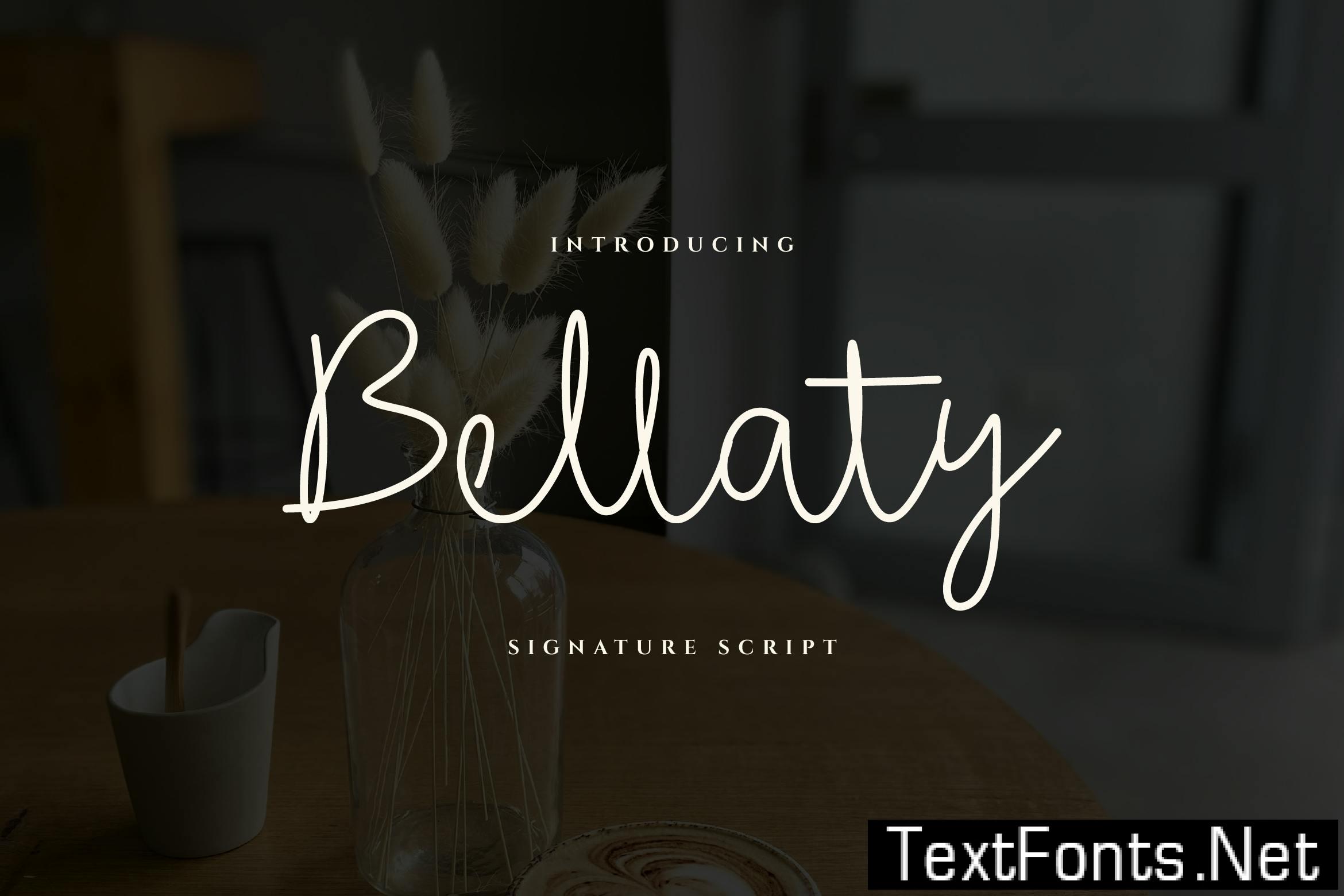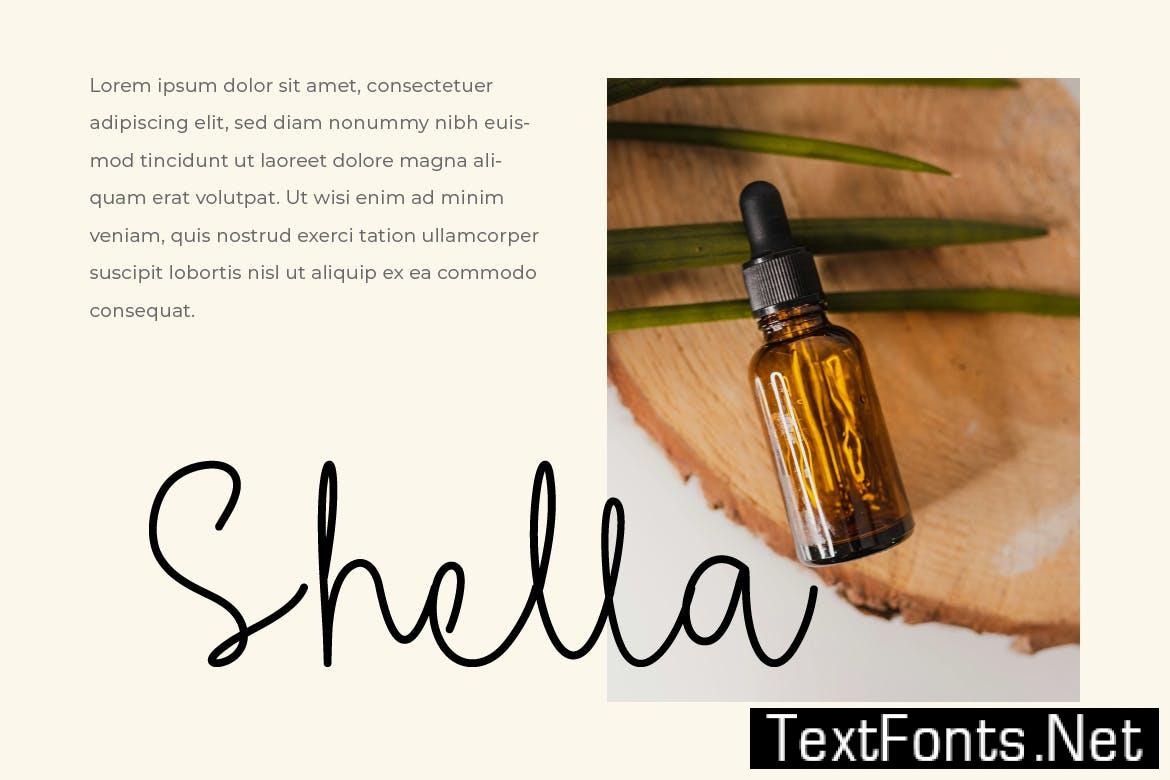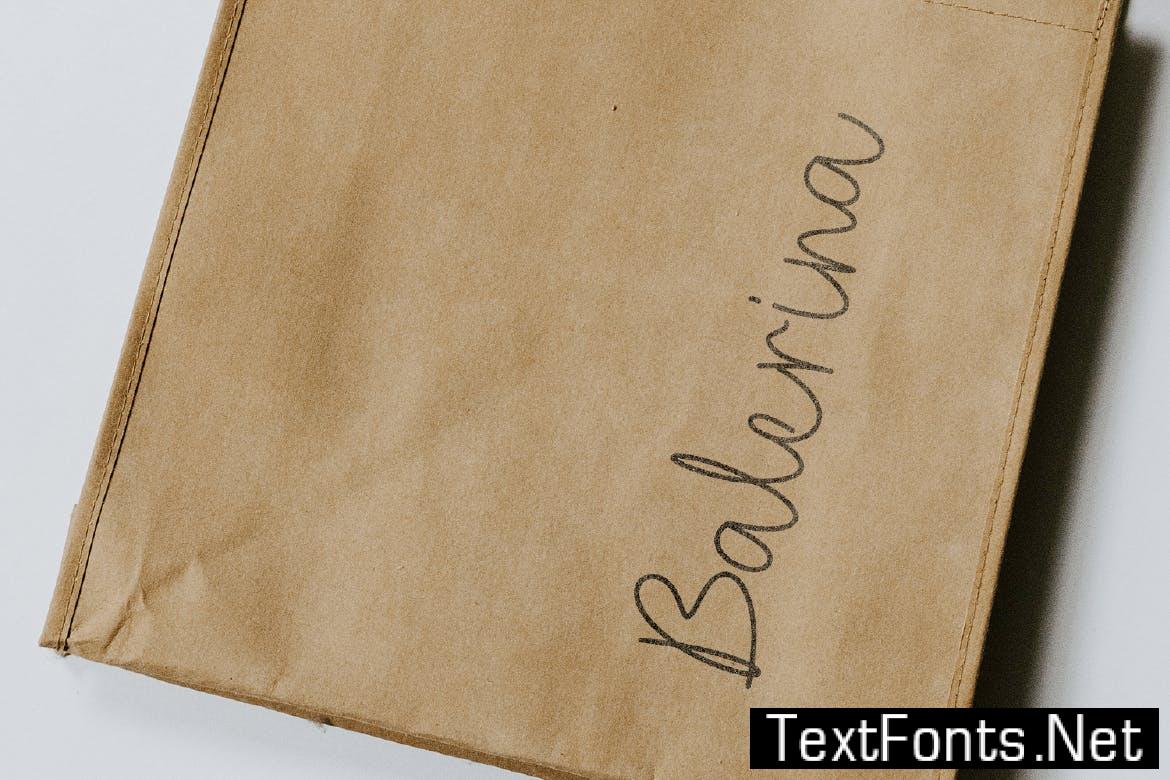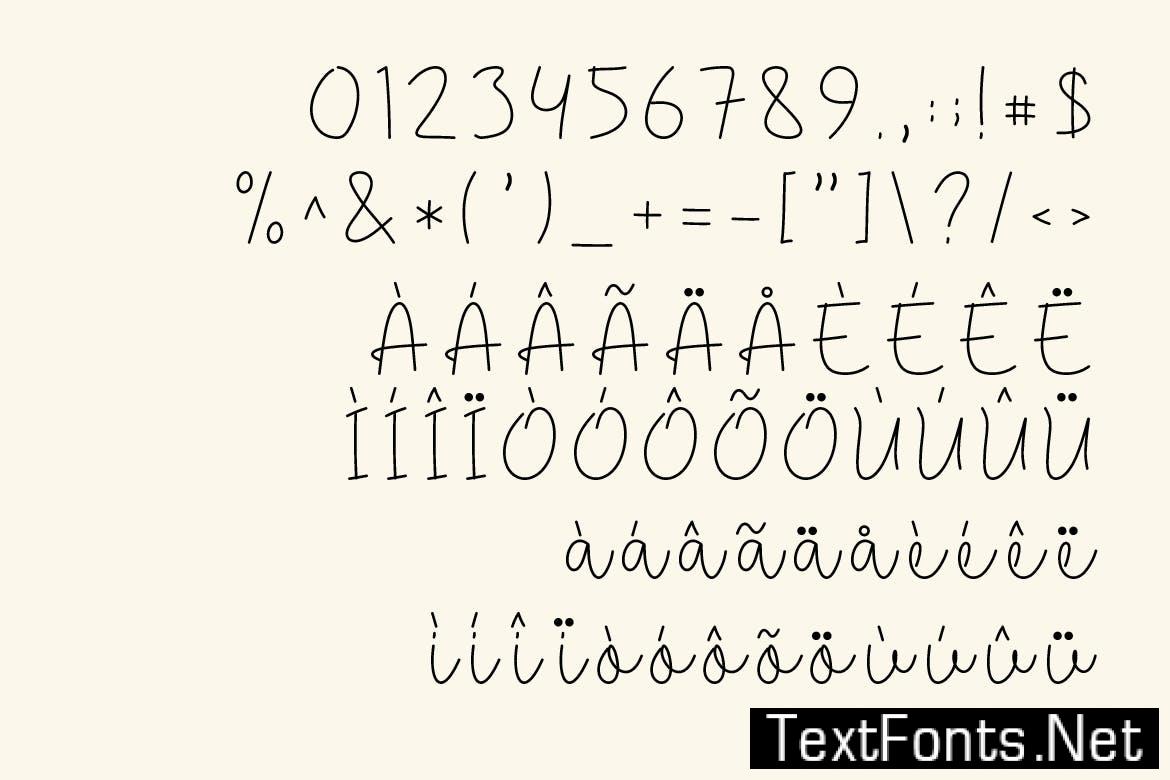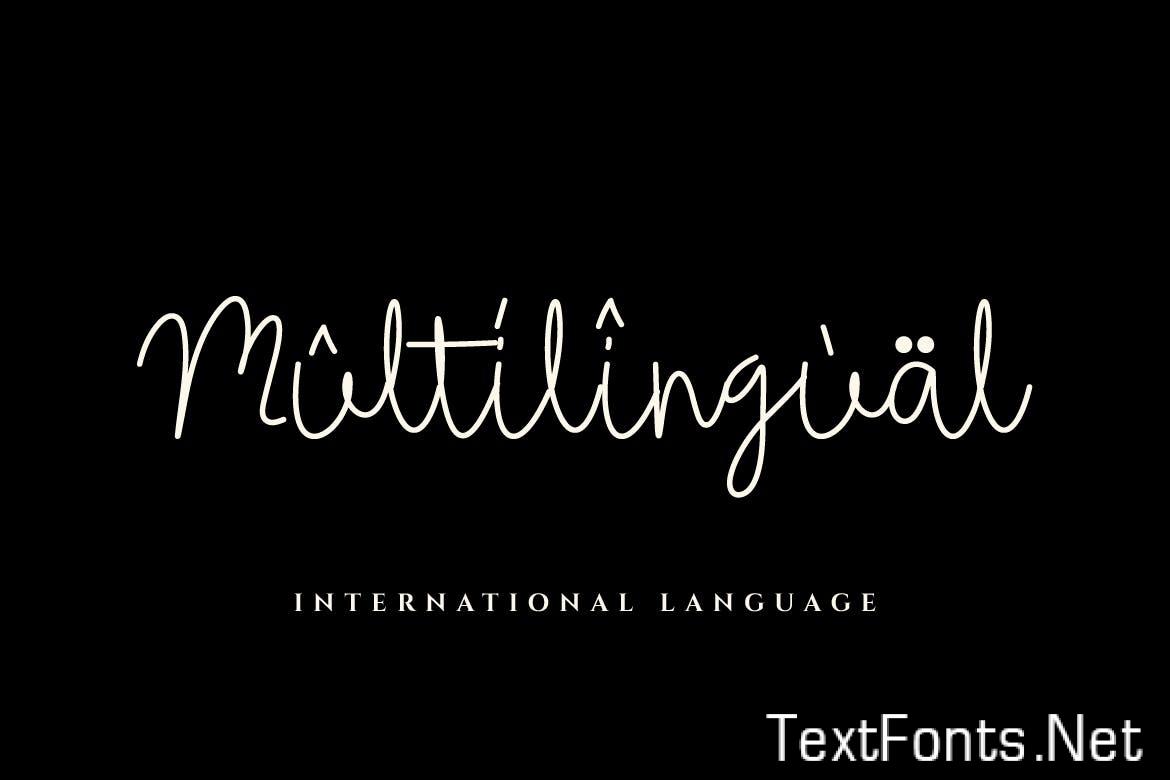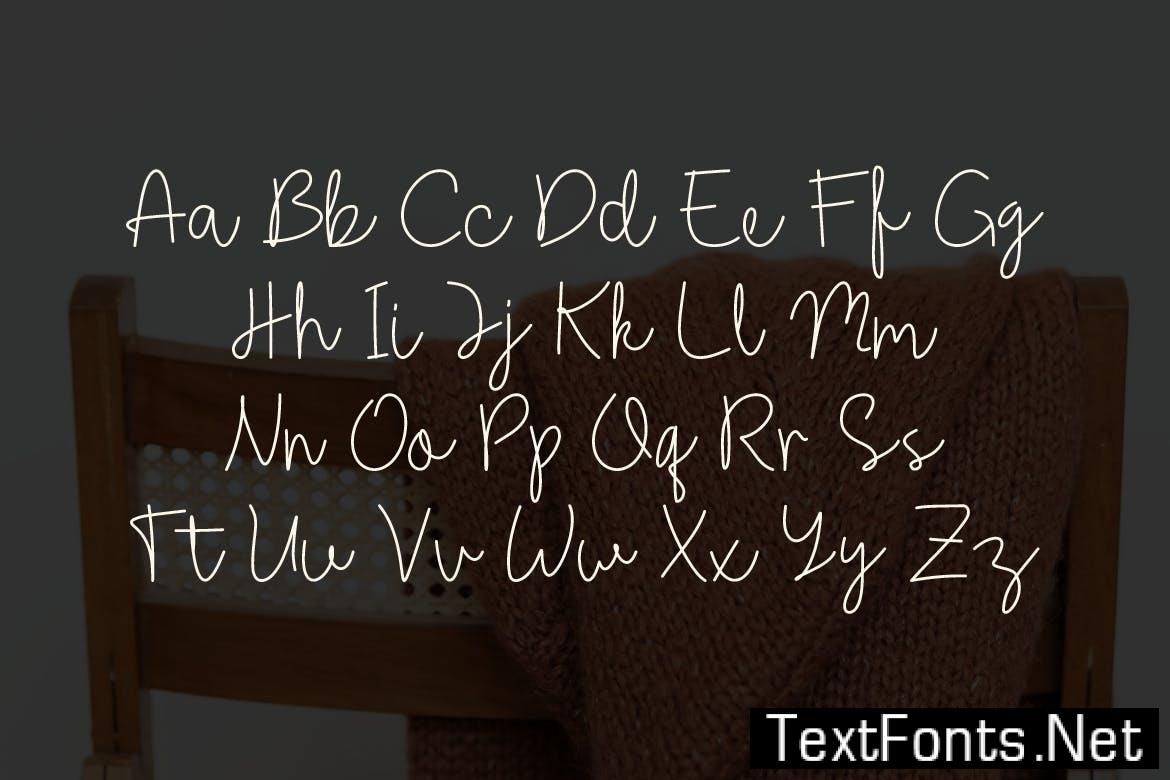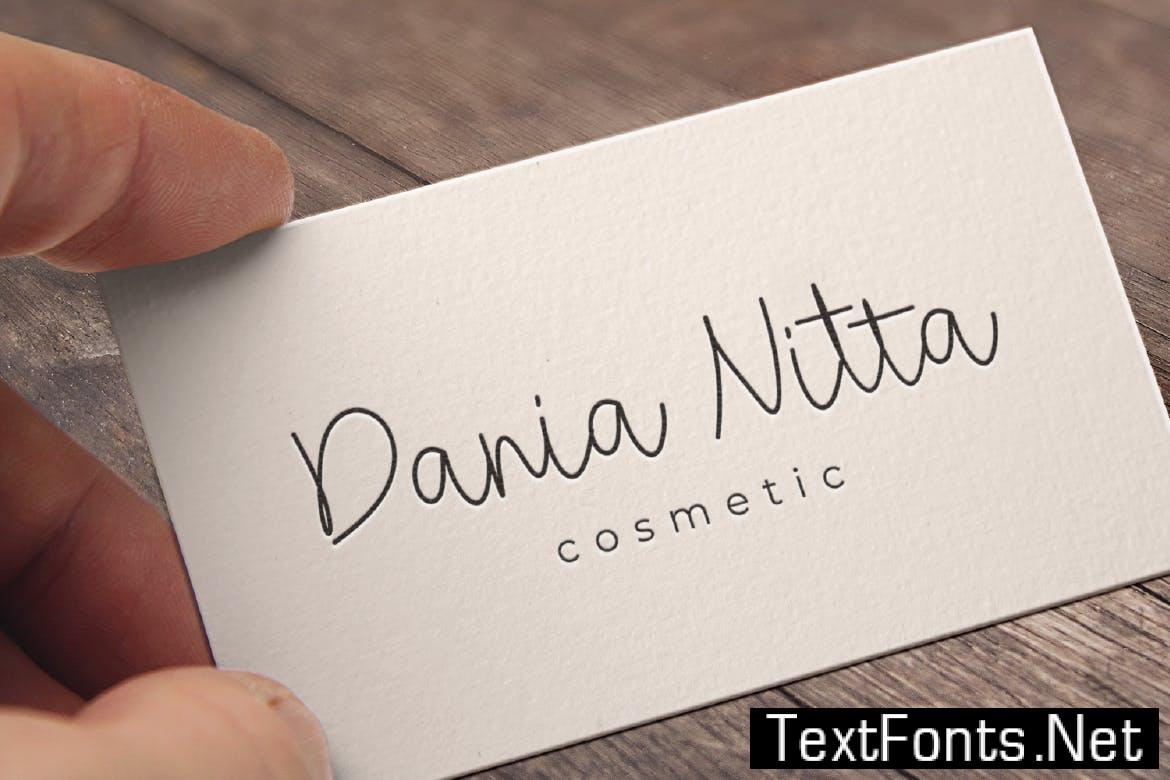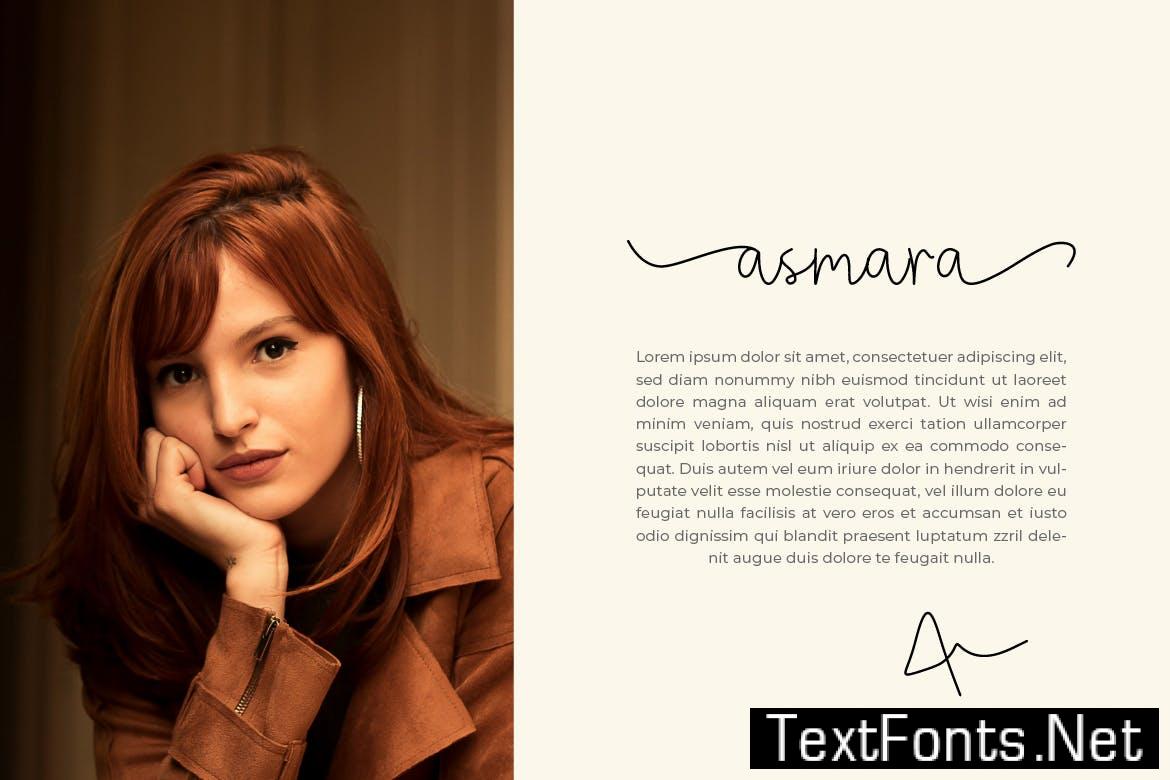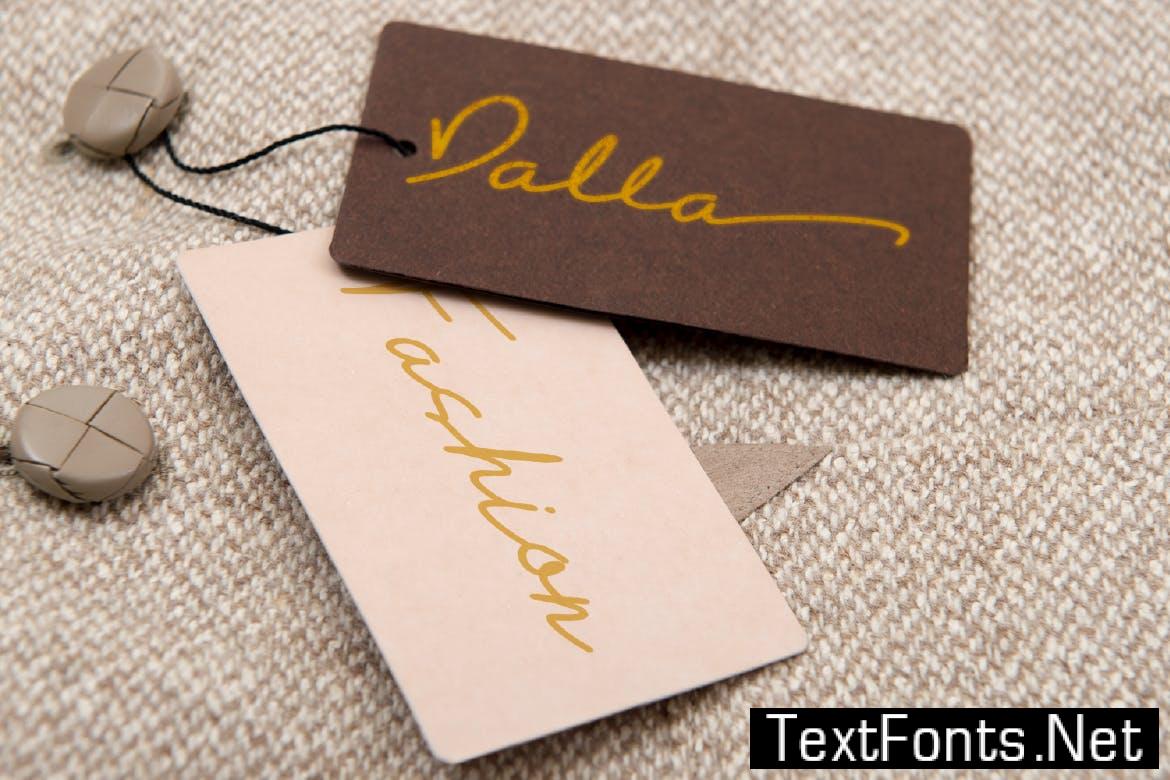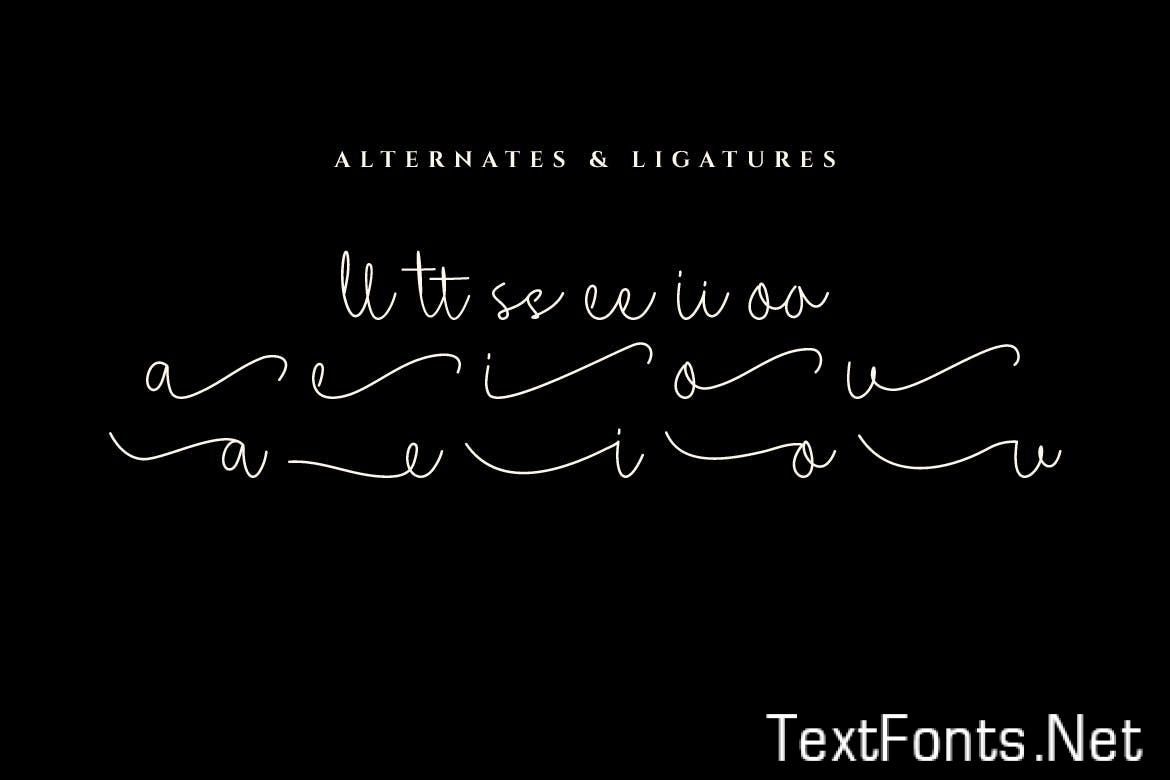
Bellaty Signature Script Font MHSJWNK
**Bellaty Signature Script Font**
This font is perfect for posters, social media posts, branding, personal projects, etc.